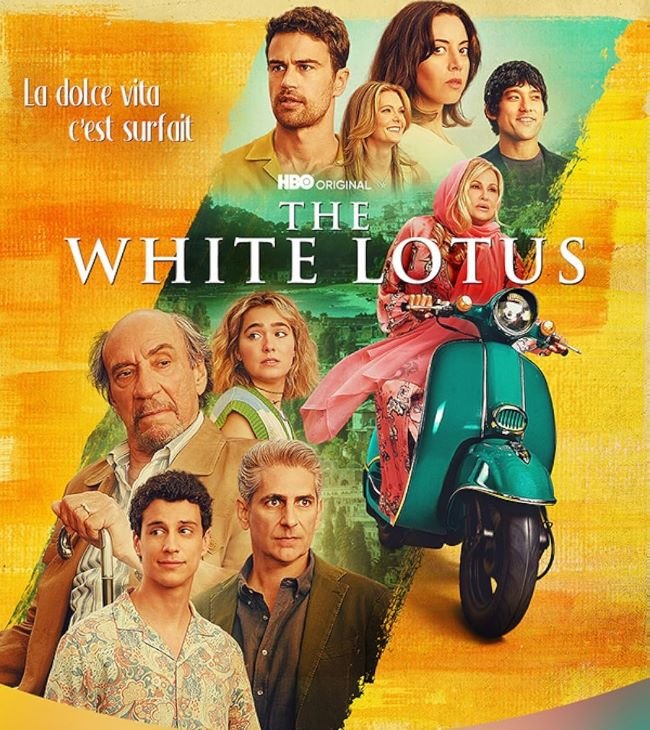
The White Lotus Font
The White Lotus Font is a refined classic serif font — Trajan Pro Bold in the original — used across Mike White’s HBO anthology satire that premiered in 2021, setting each season at a different luxury resort where the interactions between wealthy guests and overworked staff expose the hypocrisies, anxieties, and appetites that privilege conceals.
Trajan Pro’s imperial Roman origins make it a quietly perfect choice: a font whose historical associations are with monuments and authority, deployed here for a show that is fundamentally about what money builds to protect itself from reality. Three free alternatives are available.